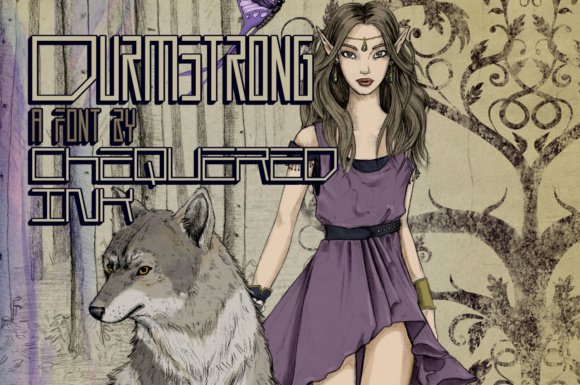
The Perfect Match for Your Design Vision
Have you ever stared at a blank page, trying to bring your creative vision to life? The words won’t come, the ideas won’t flow, and all you’re left with is a nagging sense of ‘this isn’t quite it.’ But then, like a breath of fresh air, inspiration strikes. You stumble upon the perfect font, and suddenly, everything falls into place. For many designers, that font is Durmstrong Font, a creation by the talented team at Chequered Ink.
Durmstrong Font is more than just a font – it’s a tool that helps designers convey their message with precision and flair. Its unique blend of modern and vintage elements makes it an ideal choice for a wide range of projects, from advertising and marketing to editorial and publishing. Whether you’re looking to make a statement or simply add some visual interest to your design, Durmstrong Font is sure to deliver.
Durmstrong Font Key Features
- Font Family: Durmstrong Font
- Unique Characteristics: Distinctive, bold, and modern design with a strong geometric feel, ideal for headings and titles
Durmstrong Font Review
Initially, I was excited to dive into the Durmstrong font. The first thing that caught my eye was its unique, bold design. The font truly shines in ✨ headings and titles, where its strong, geometric lines can make a statement. It’s perfect for those who want to create a bold and modern aesthetic.
The font also performs well in ✨ body text, especially at larger font sizes. However, it can start to feel a bit cramped at smaller sizes, which might limit its use in certain applications.
- ⚠️ Readability issues: The font’s bold design can make it difficult to read at smaller sizes or in low-light conditions.
- ⚠️ Limited language support: Durmstrong font may not support certain languages, which could be a problem for global or multilingual projects.
Overall, the Durmstrong font is a great choice for those who want to add a touch of modernity and boldness to their design. However, it may not be suitable for every project, especially those that require a high level of readability or language support.
Getting the Most Out of Durmstrong Font
To get the most out of the Durmstrong font, consider the following tips:
– Use it for headings and titles to add a touch of sophistication.
– Experiment with different font sizes and colors to create visual interest.
– Pair it with other fonts to create a unique and eye-catching design.
The Durmstrong font is commonly used for:
– Headings and titles
– Creative and artistic projects
– Any design where a unique and sophisticated look is desired.
Alternatives to Durmstrong Font
1. Arial Black
Arial Black is a sans-serif font known for its bold and modern appearance. It is ideal for use in headings, titles, and other areas where a strong, attention-grabbing font is needed. Compared to Durmstrong Font, Arial Black is more widely available and can be used in a variety of contexts, making it a versatile alternative.
2. Impact
Impact is a sans-serif font characterized by its bold and condensed style. It is often used in titles, headings, and other areas where a strong, dramatic effect is desired. Unlike Durmstrong Font, Impact is more dramatic and attention-grabbing, making it suitable for use in contexts where a bold statement is needed.
3. Rockwell
Rockwell is a serif font known for its classic, elegant appearance. It is often used in body text, but can also be used in headings and titles where a more formal, sophisticated look is desired. Compared to Durmstrong Font, Rockwell is more traditional and formal, making it a suitable alternative for use in contexts where a classic, timeless look is needed.
4. Museo Slab
Museo Slab is a serif font characterized by its modern, elegant appearance. It is often used in body text, but can also be used in headings and titles where a sophisticated, refined look is desired. Unlike Durmstrong Font, Museo Slab is more refined and elegant, making it a suitable alternative for use in contexts where a
Unlocking Creative Potential with Durmstrong Font
Project 1: Industrial Chic Poster
Design a poster that captures the essence of industrial chic, using Durmstrong Font as the primary font.